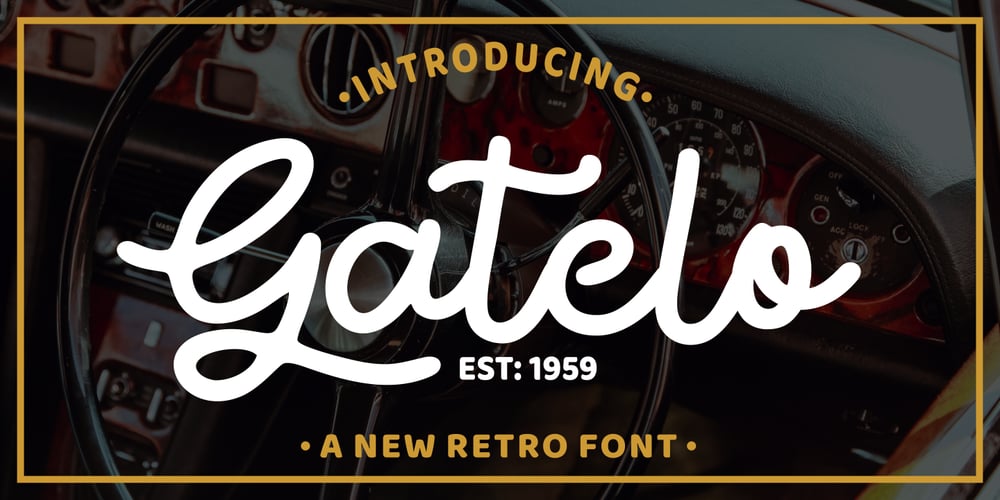
Gatelo Font Family was designed by Dian Haniffan Hadi and published by Beary. Gatelo contains 1 styles and family package options. Gatelo is inspired by a retro and hand lettering style. Every single letter have been carefully crafted to make your text looks beautiful. I hope this can further inspire you from your work. Font is PUA encoded so you can access extras from character map in most design software. To enable the OpenType stylistic alternates, you need a program that supports OpenType features such as Adobe Illustrator CS, Adobe Indesign & CorelDraw. There are additional ways to access alternates, using Character Map (Windows), Nexus Font (Windows), Font Book (Mac) or a software program such as PopChar (for Windows and Mac). Happy Creating